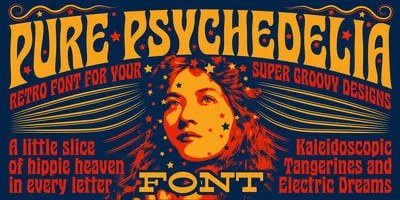
Pure Psychedelia Font
Pure Psychedelia Font is perfect for music festival posters, alternative band branding, psychedelic art exhibitions, vintage record album covers, counterculture event materials, artistic expression projects, creative studio identities, and experimental design campaigns.
Pure Psychedelia Font is exciting because it captures the mind-expanding creativity and vibrant energy of psychedelic art through its flowing character design that embodies the kaleidoscopic beauty of consciousness exploration and the revolutionary spirit of artistic freedom. Its trippy styling and countercultural appeal make it the perfect choice for brands that want to communicate creativity, rebellion, and the transformative power of artistic expression.
Pure Psychedelia Font family includes multiple groovy variations: Pure Psychedelia Regular, Pure Psychedelia Bold, Pure Psychedelia Wavy, Pure Psychedelia Spiral, Pure Psychedelia Rainbow, and Pure Psychedelia Cosmic, along with psychedelic decorative elements and trippy symbols, providing designers with comprehensive tools for creating authentic psychedelic and artistic-themed brand experiences.
When exploring artistic typography solutions, Pure Psychedelia Font stands out as the definitive choice for designers working on music and art projects that require genuine psychedelic sophistication and creative appeal. This mind-bending typeface embodies the essence of psychedelic culture while offering the versatility needed for modern music marketing and artistic event communications. The font's trippy character and artistic resonance create immediate connections with audiences who appreciate experimental art and countercultural expression.
Creative professionals consistently choose Pure Psychedelia Font for projects requiring authentic psychedelic sophistication and powerful artistic appeal. Its expertly crafted letterforms feature mind-expanding influences that work exceptionally well in both large-scale music festival displays and intimate art gallery presentation materials. The font's ability to convey creativity and artistic revolution while maintaining strong brand recognition makes it invaluable for comprehensive identity systems in the music entertainment, experimental art, and creative expression sectors.
Whether you're developing music festival identities, creating psychedelic art exhibition materials, or designing countercultural event promotions, Pure Psychedelia Font delivers the authentic psychedelic character and artistic appeal that resonates with audiences who embrace creative freedom and experimental expression. Its artistic significance and trippy design ensure your projects capture the mind-expanding beauty of psychedelic culture while maintaining contemporary professional standards that attract modern artists and creative consciousness explorers.